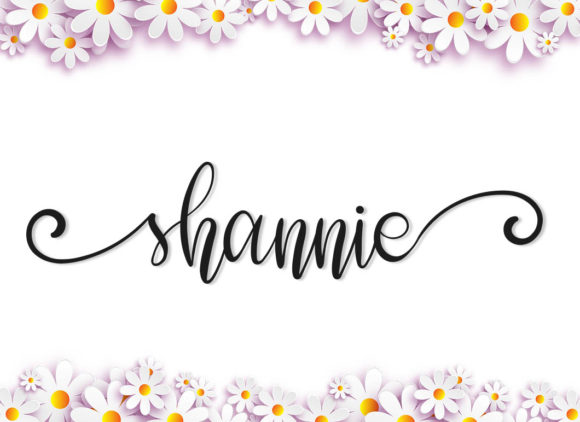
Introducing Shannie Font – the enchanting script font that will ignite your creativity and elevate your designs to new heights. Shannie's delicate curves and graceful strokes evoke a touch of elegance and charm, making it perfect for adding a personal touch to your most special projects.
Unleash the power of Shannie to craft breathtaking wedding invitations that capture the essence of your love story. Its flowing lines and gentle flourishes will transform your words into a visual masterpiece, setting the tone for a day filled with joy and romance.
Beyond weddings, Shannie shines as a versatile companion for any creative endeavor. Design eye-catching social media posts that stand out from the crowd, or create beautiful stationary art that leaves a lasting impression. Its organic, hand-lettered style adds a touch of authenticity to everything you touch.
Immerse yourself in the world of Shannie Font and discover a world of endless possibilities. Its charm and versatility will inspire you to create designs that captivate hearts and make a lasting impression. Let your creativity soar with Shannie, the font that will transform your ideas into works of art.